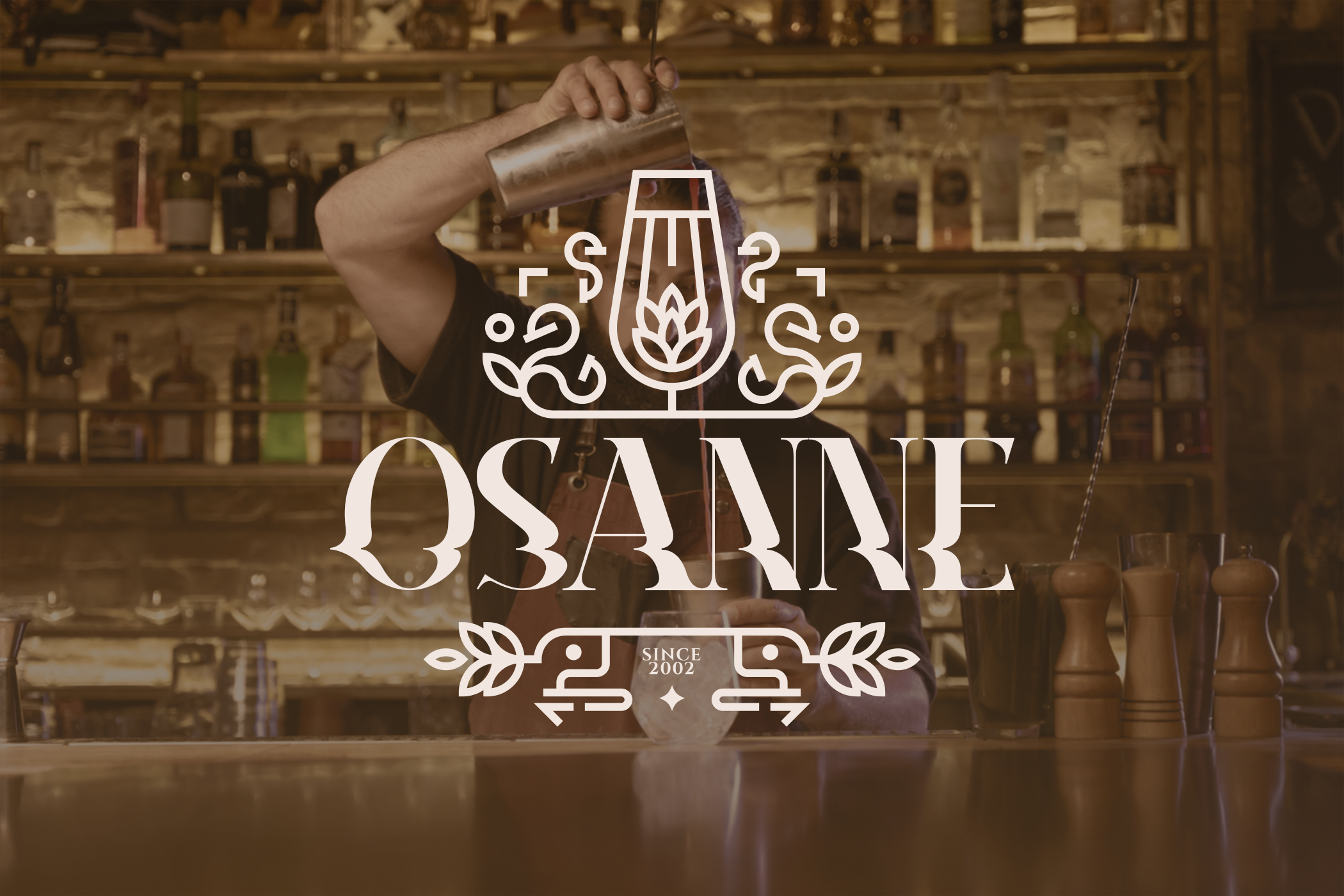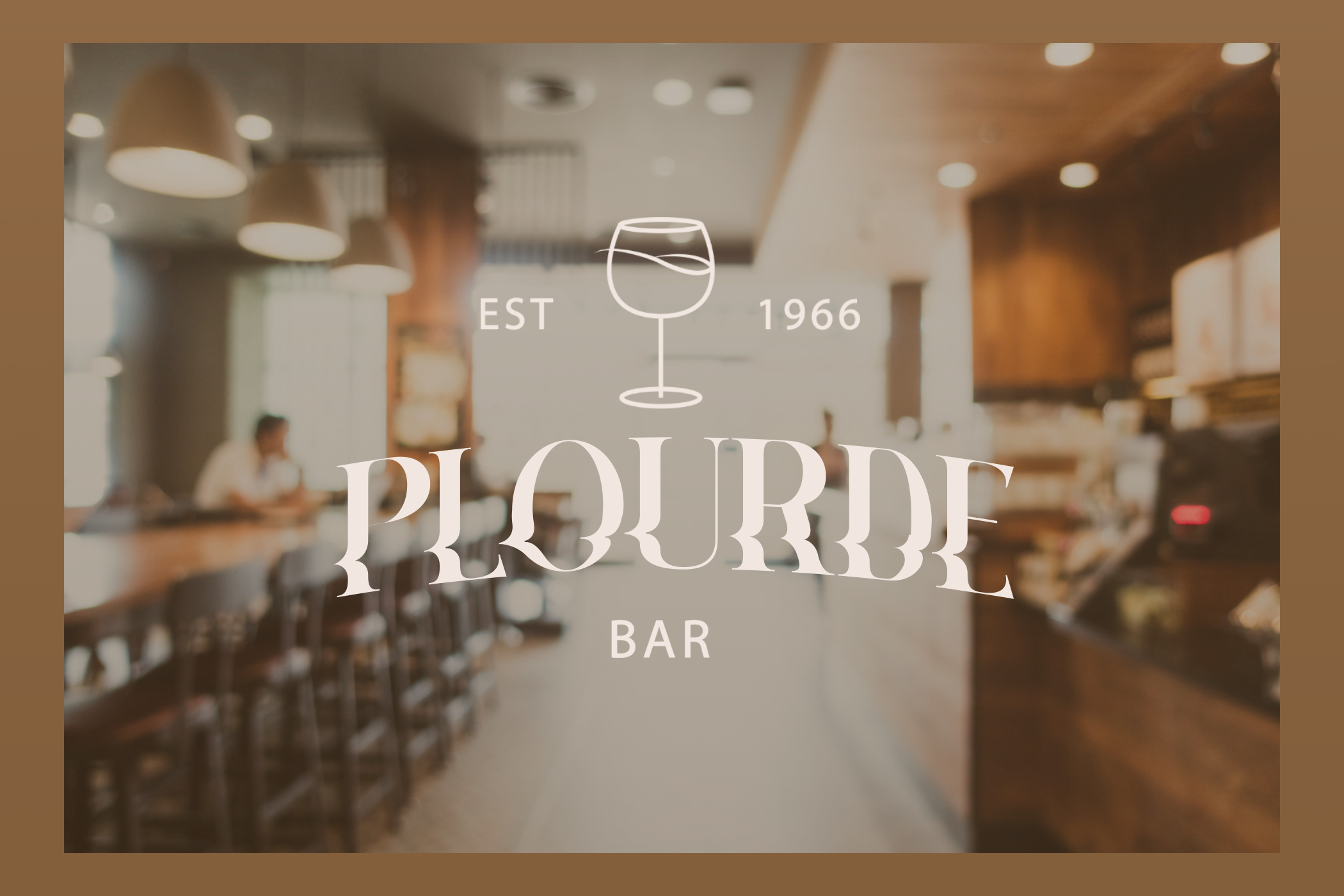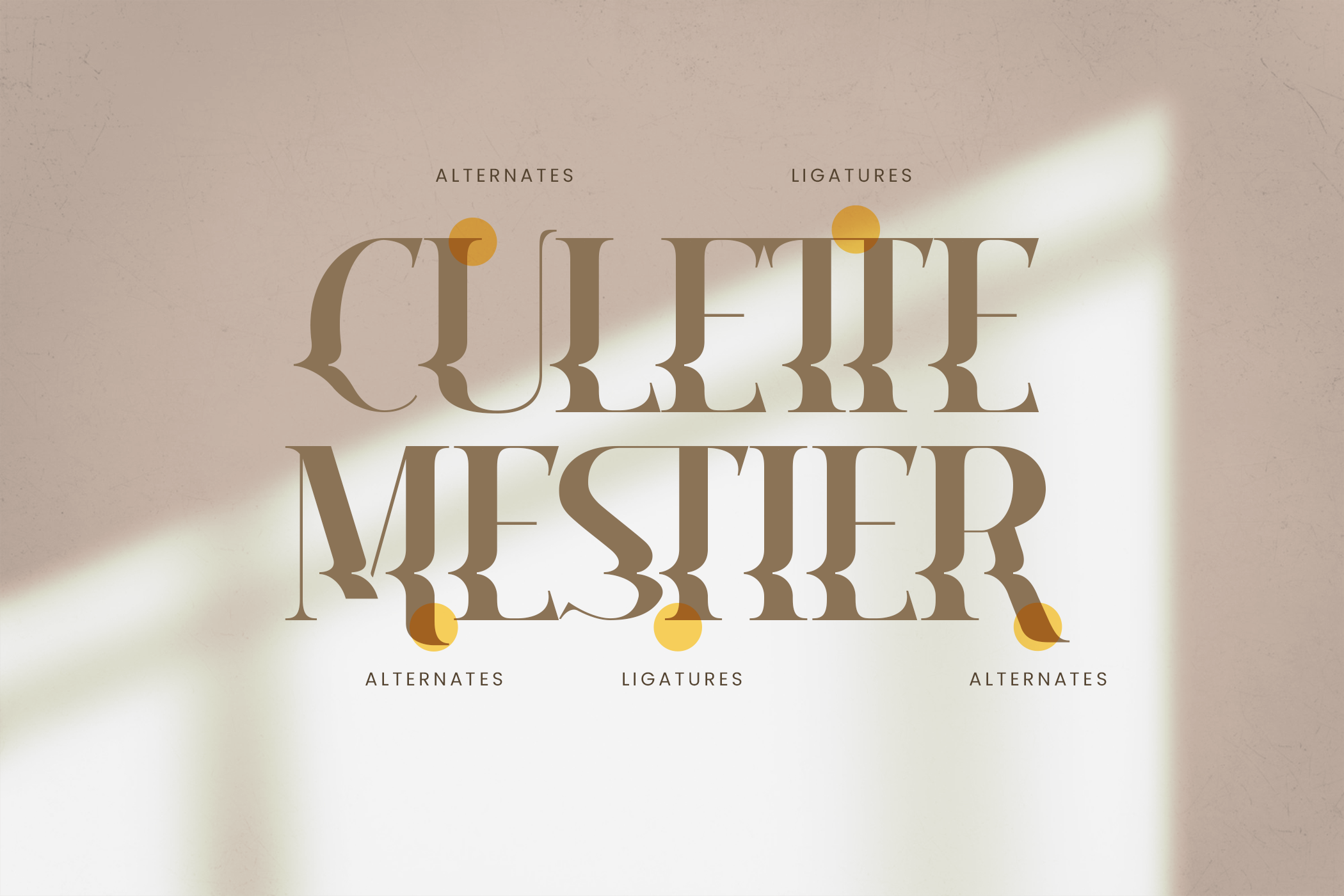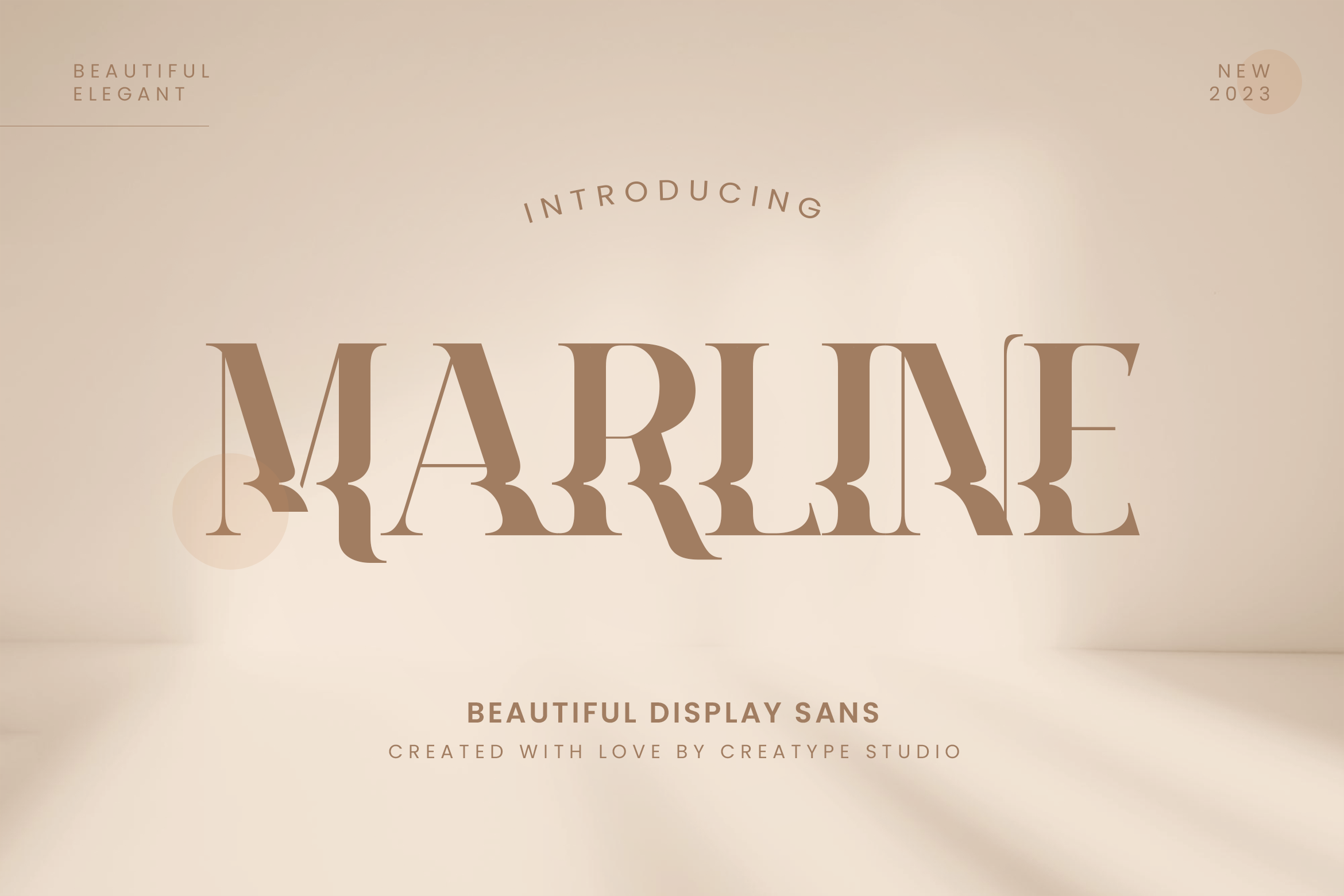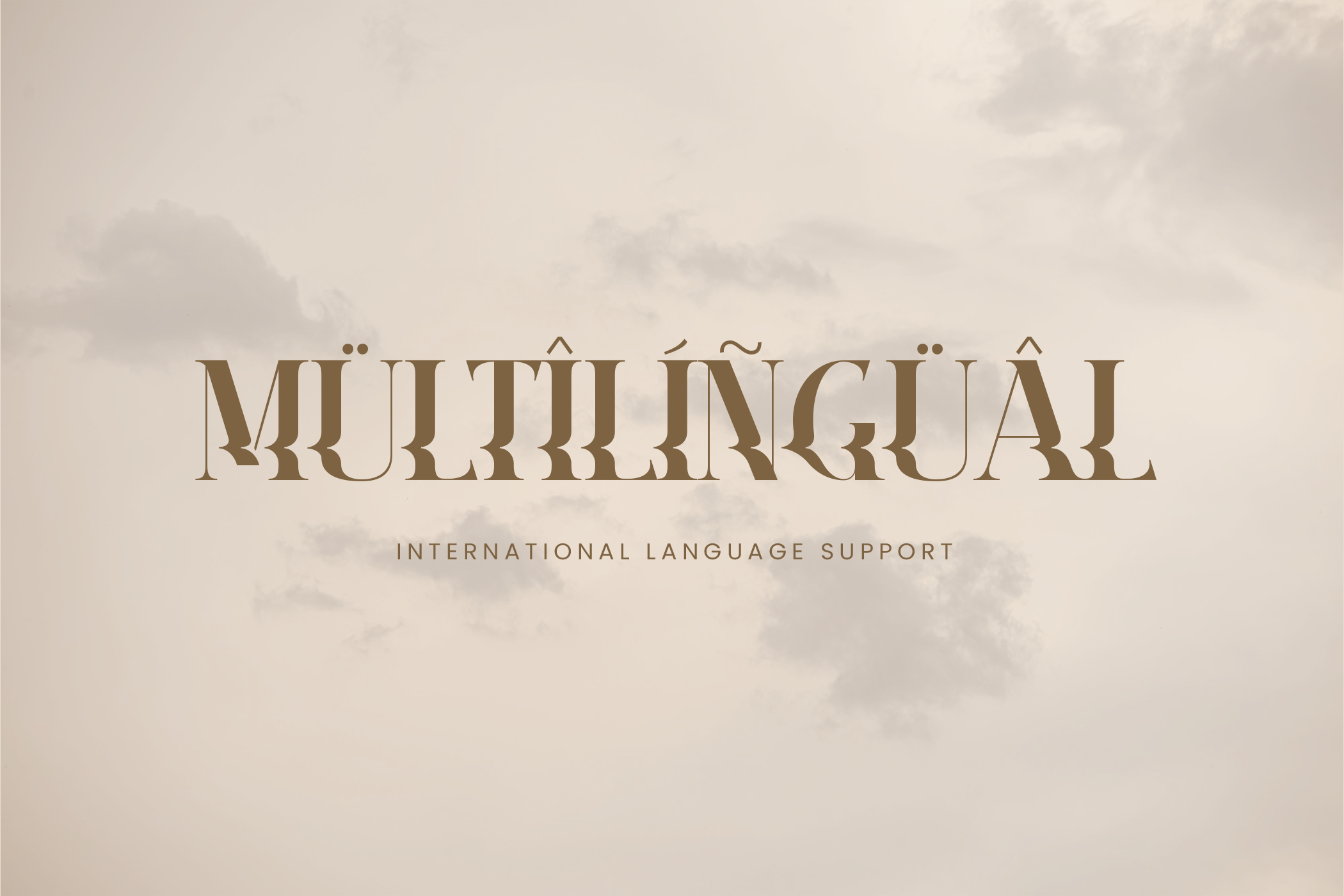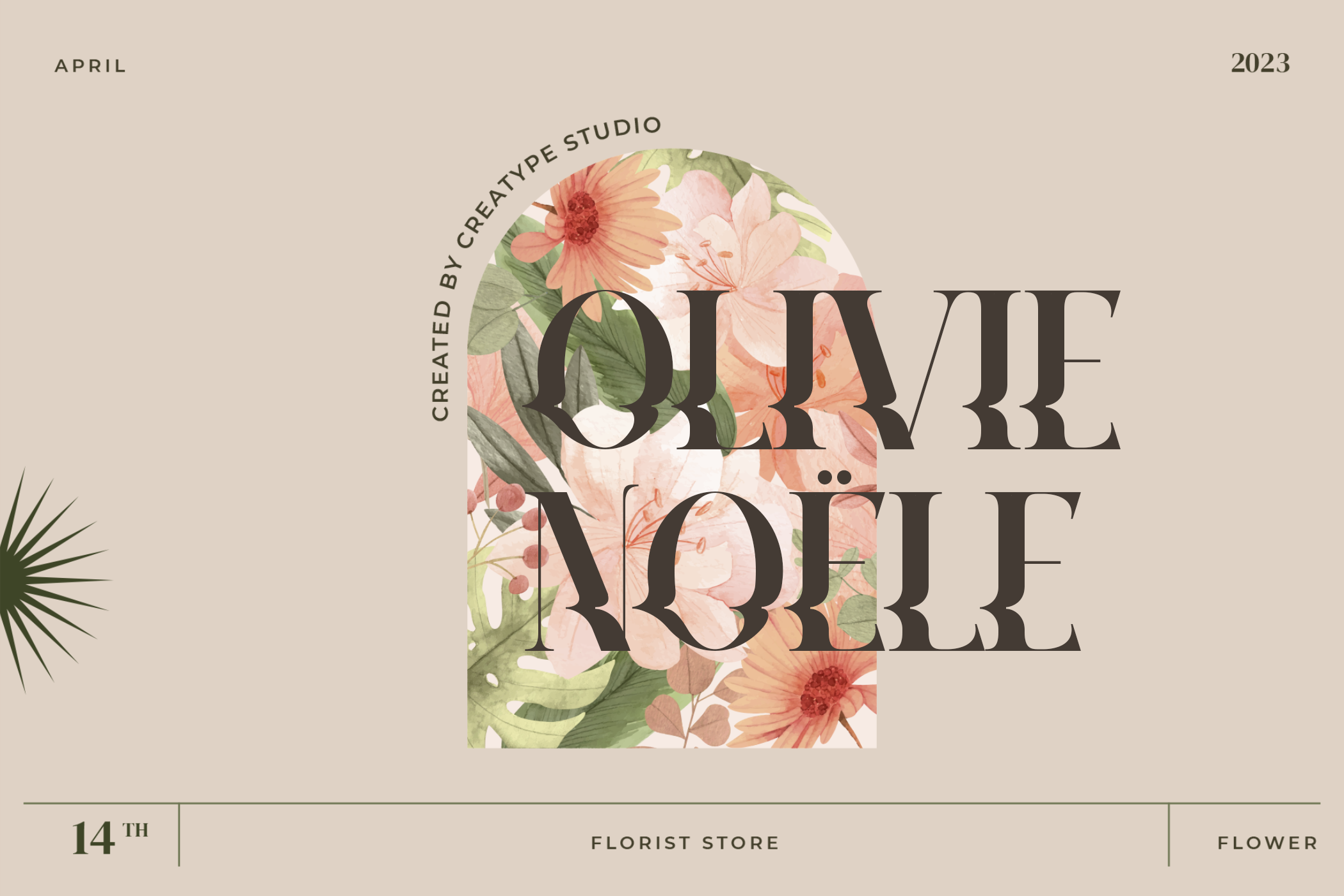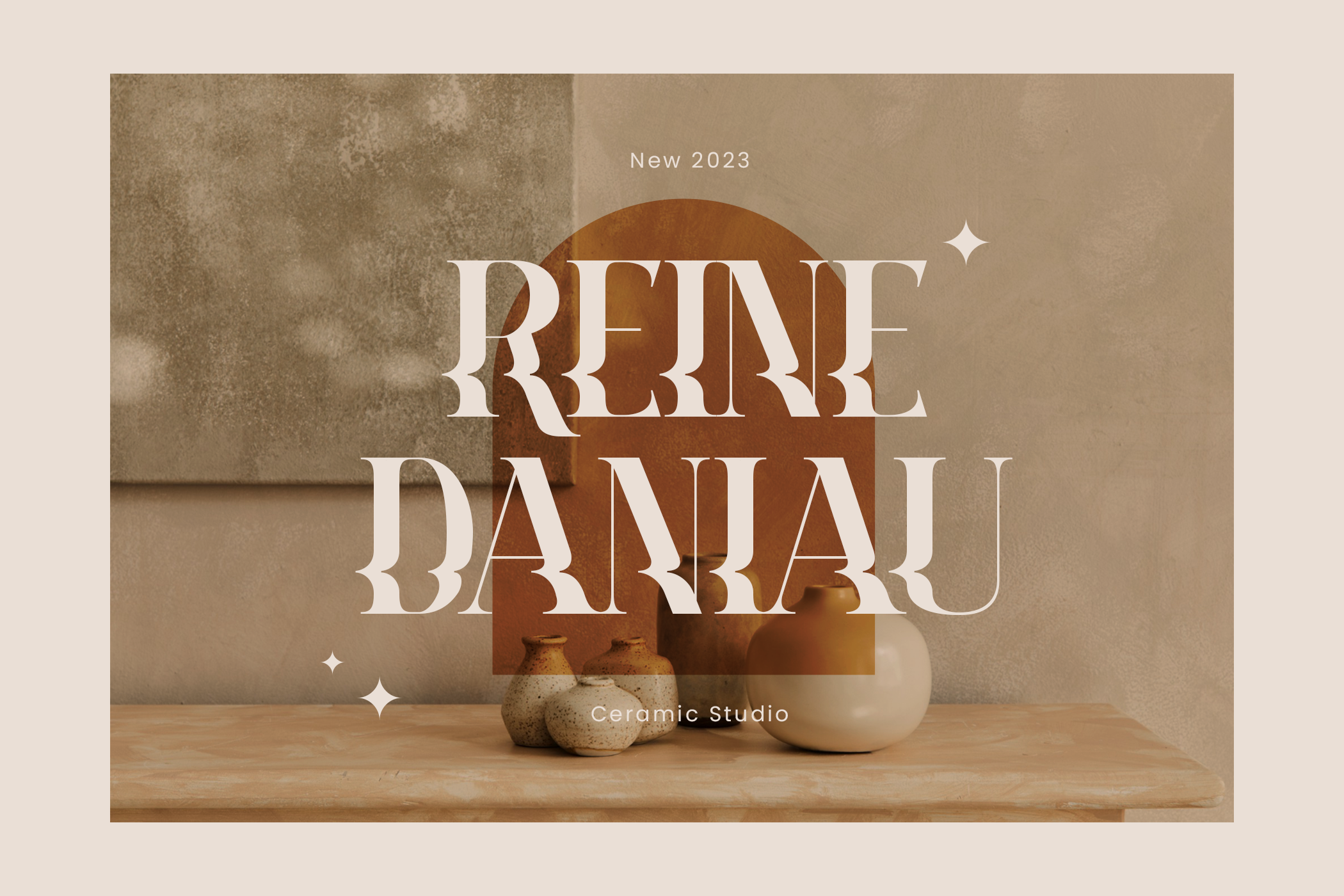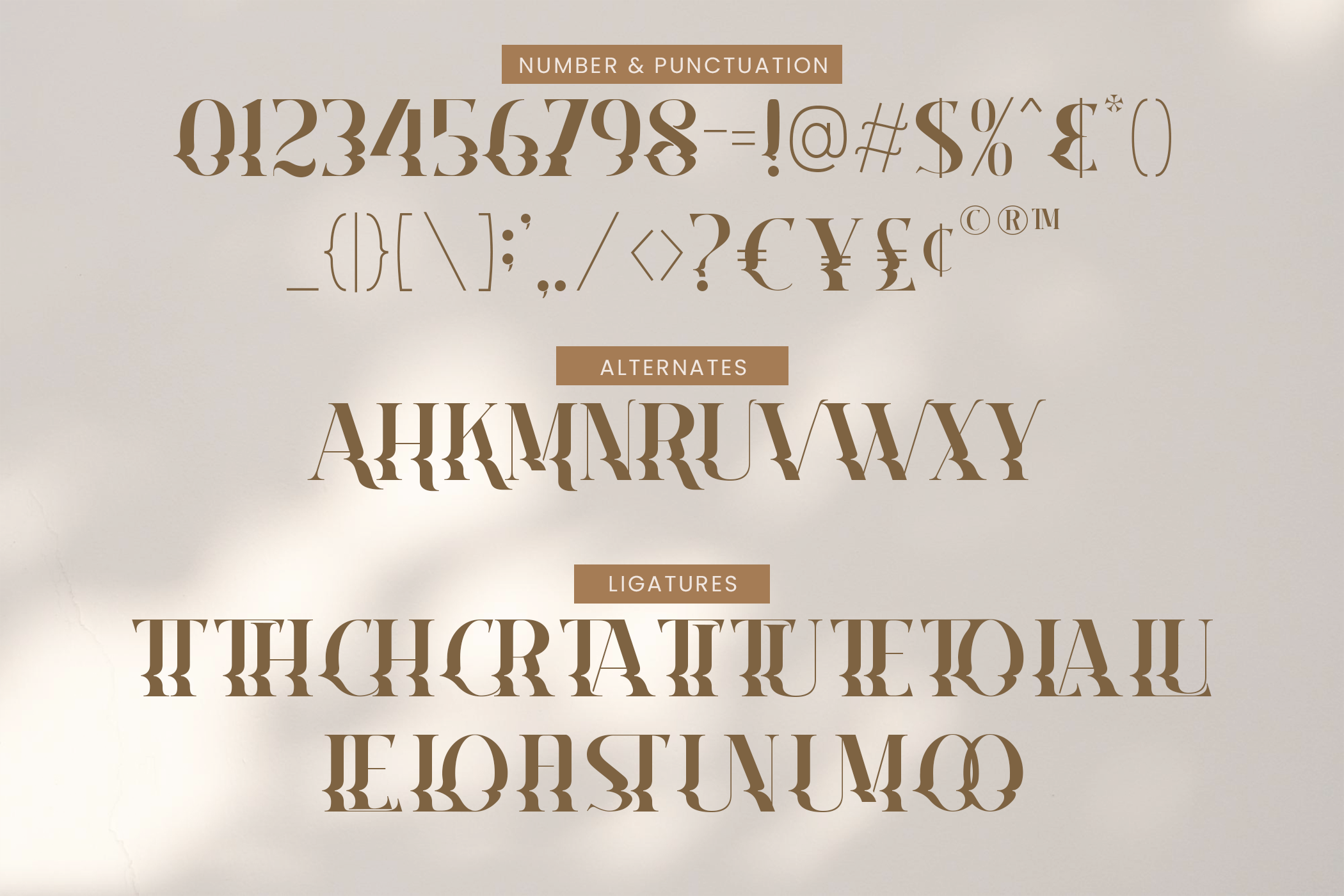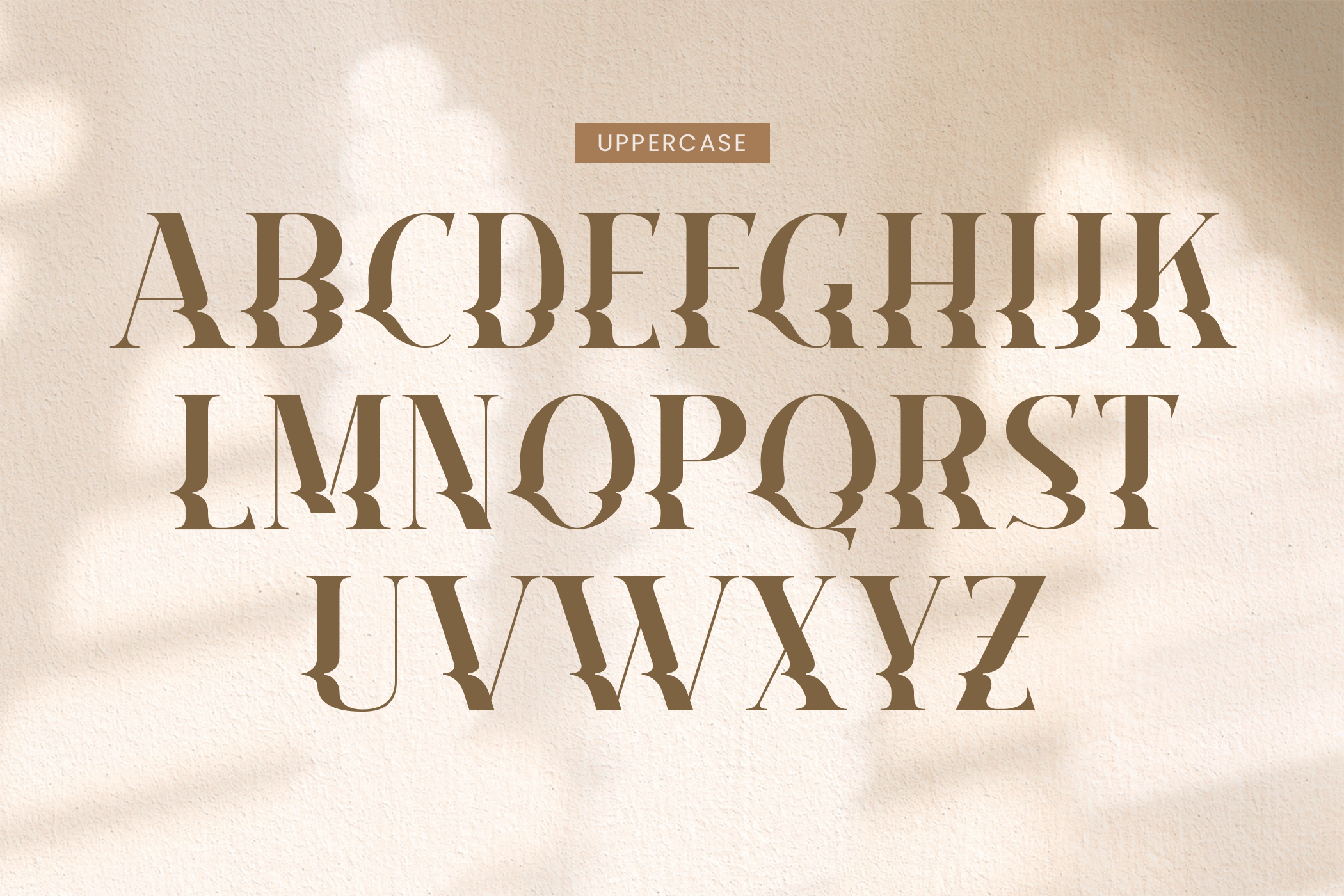
Marline, a beautiful display font that pairs modern styling with unique, twist-filled forms, creating a one-of-a-kind impression.
Marline Beautiful Sans